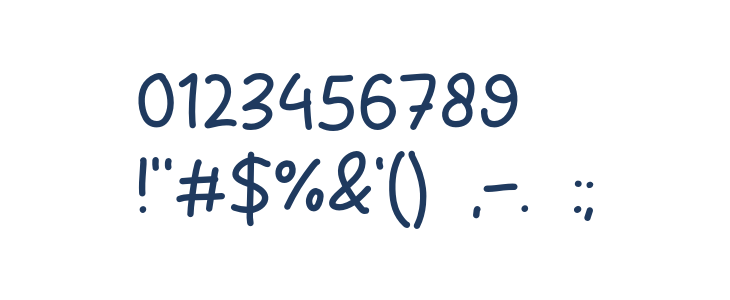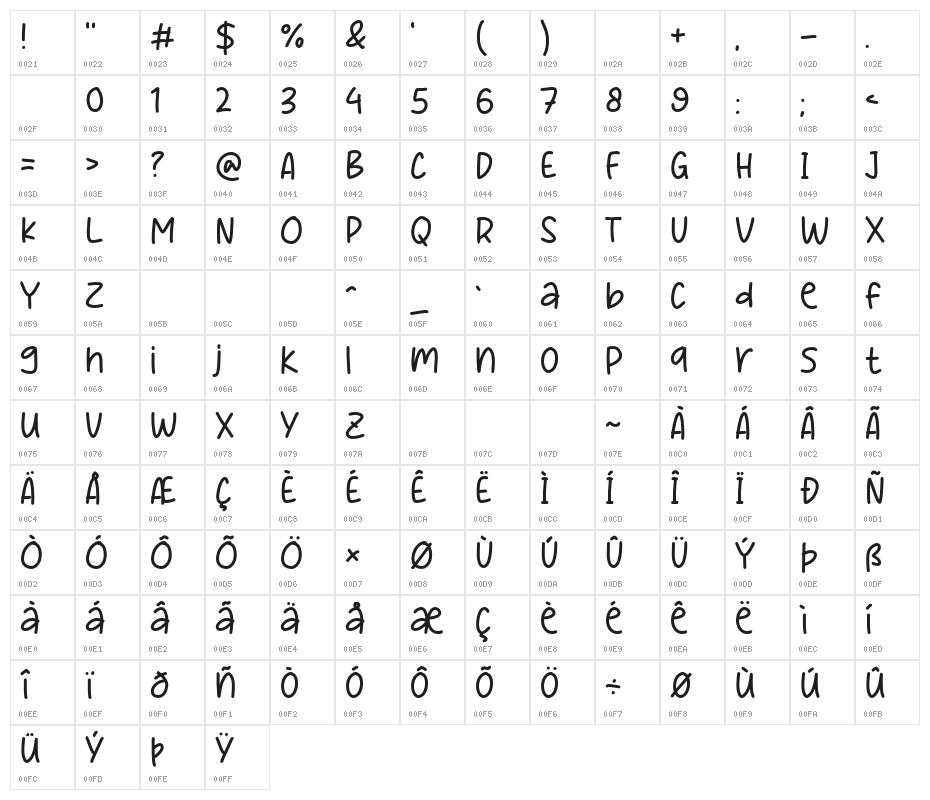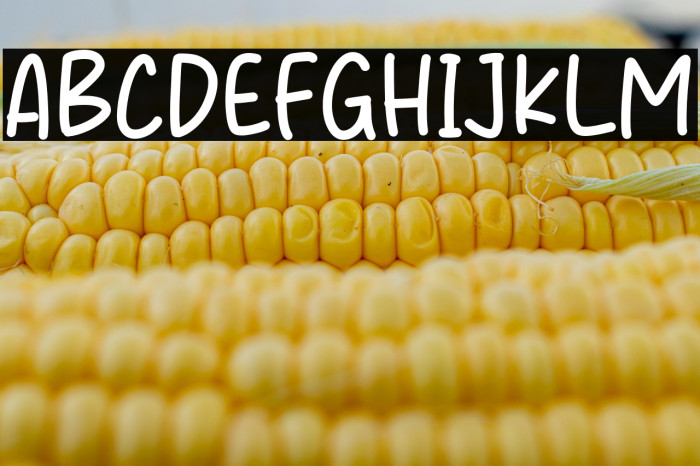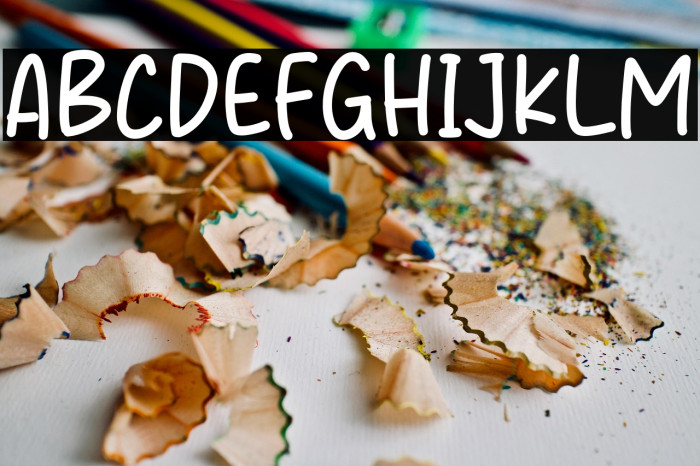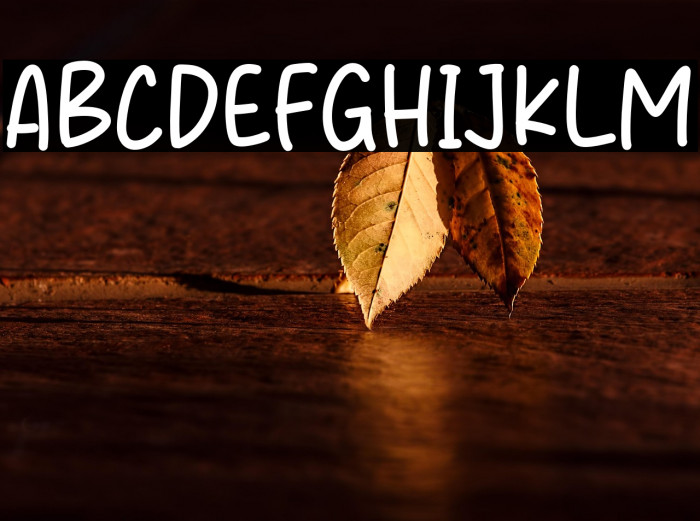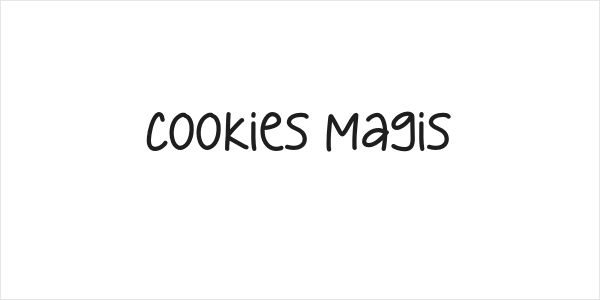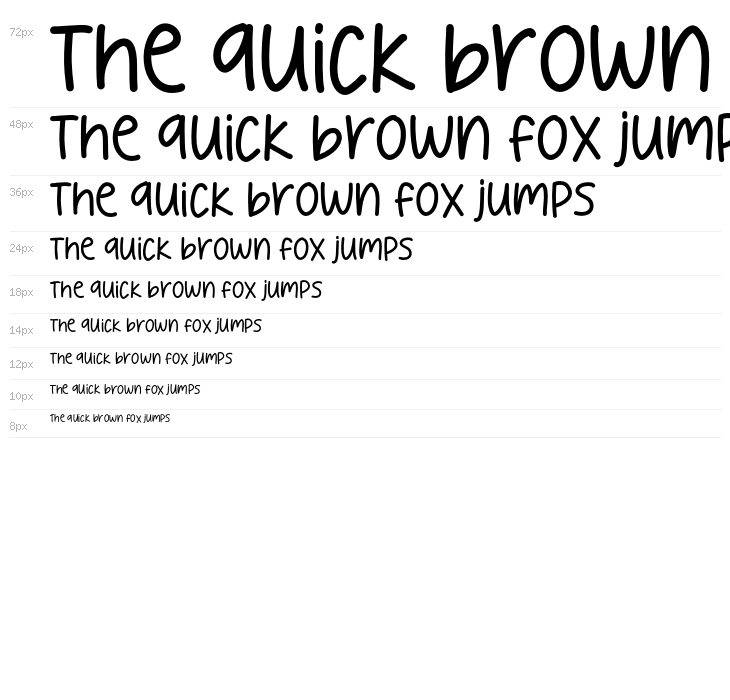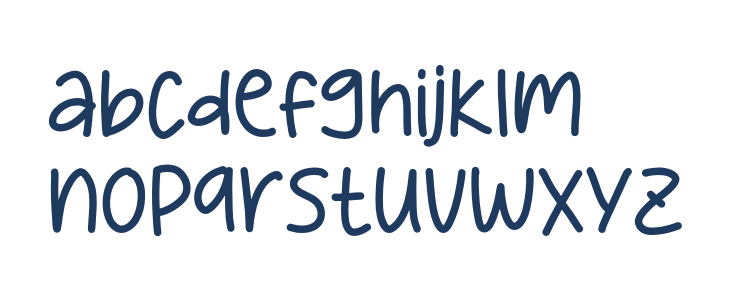
Cookies Magis Font
Cookies Magis Description
This font exhibits a playful and casual handwritten style, characterized by its rounded and smooth letterforms. The strokes are consistent in width, giving it a uniform appearance that enhances readability. The characters have a slightly informal and friendly vibe, making it suitable for projects that aim to convey warmth and approachability. The font includes a full set of uppercase and lowercase letters, numerals, and a variety of special characters, ensuring versatility in usage. Its design is simple yet effective, making it a great choice for creative and informal applications.
| Overall Style | Casual |
| Use Case | Headlines, Logos, Informal Text |
| Proposed Projects | Ideal for children's books, greeting cards, casual branding, and social media graphics. |